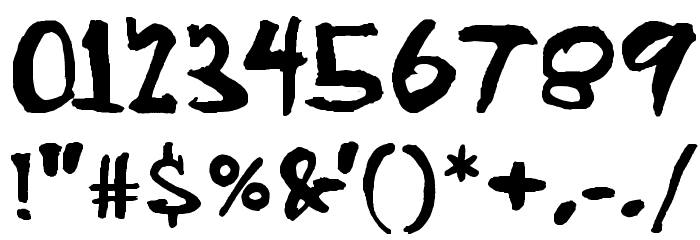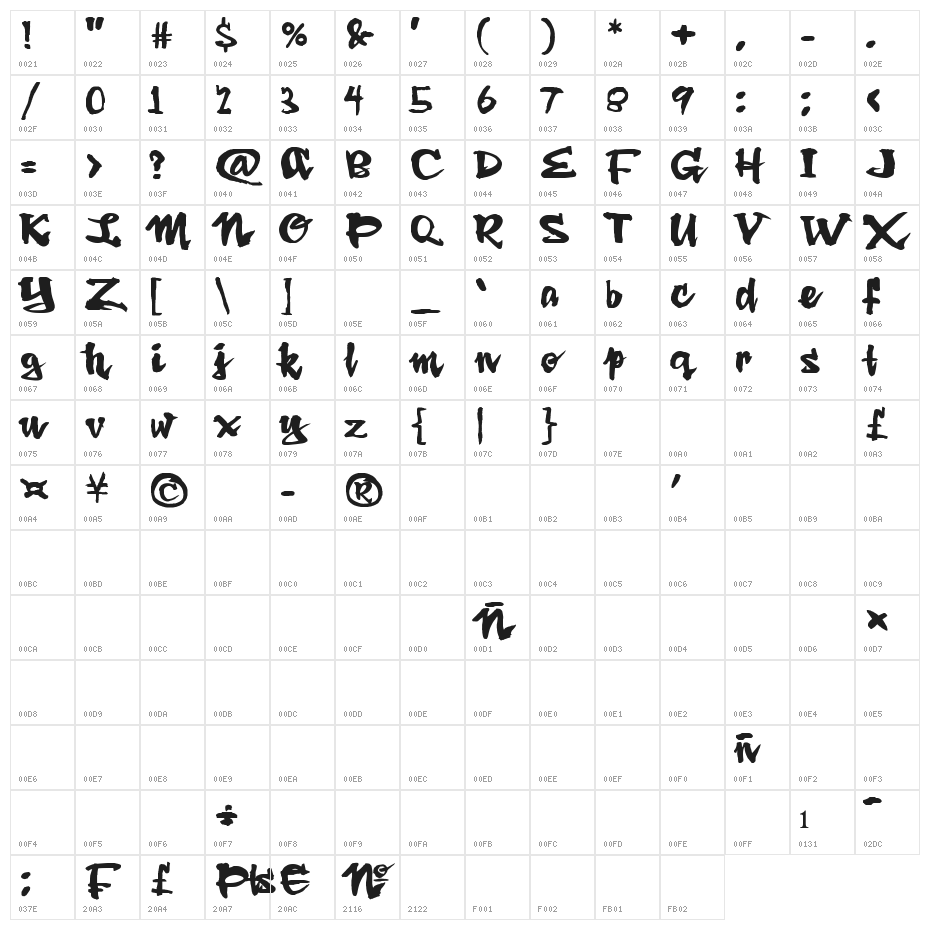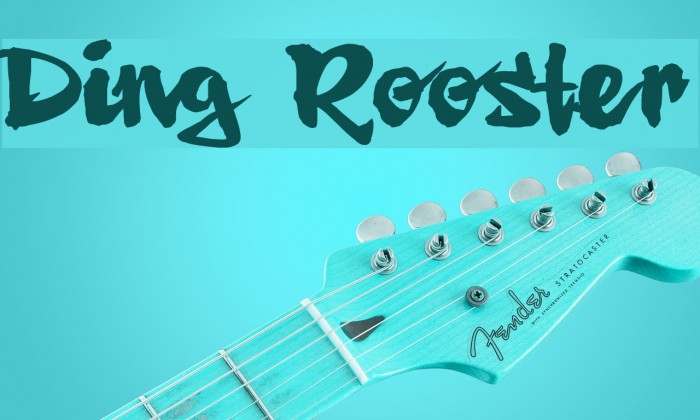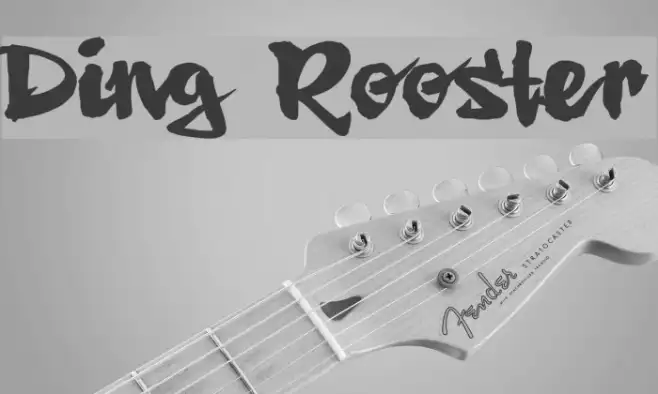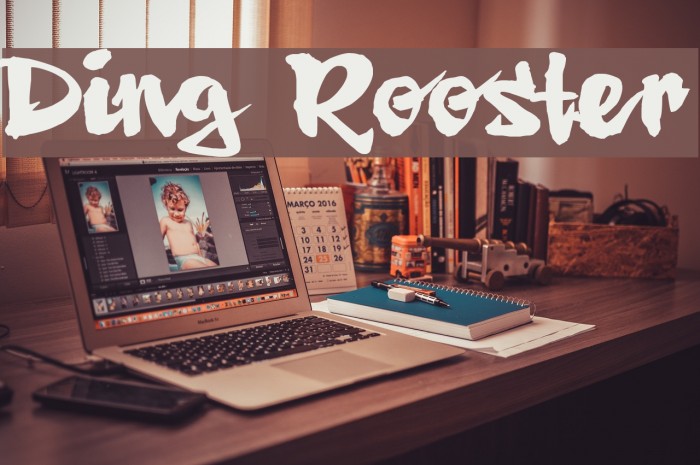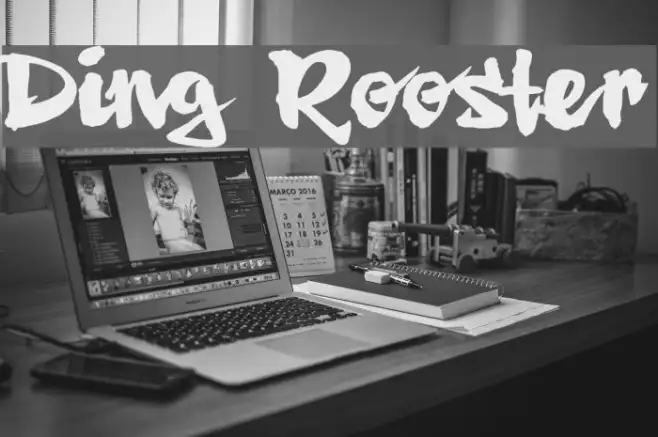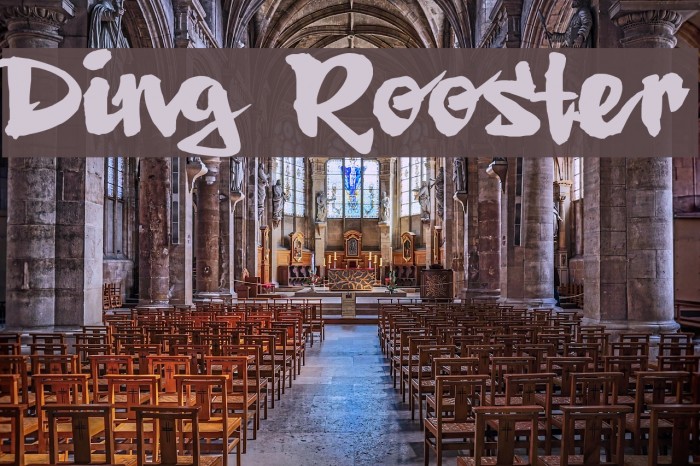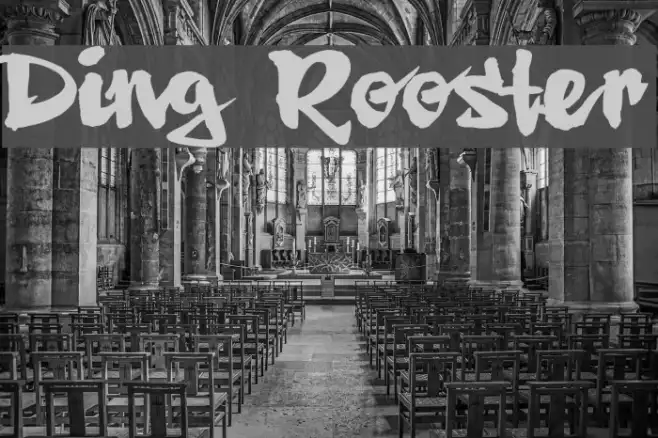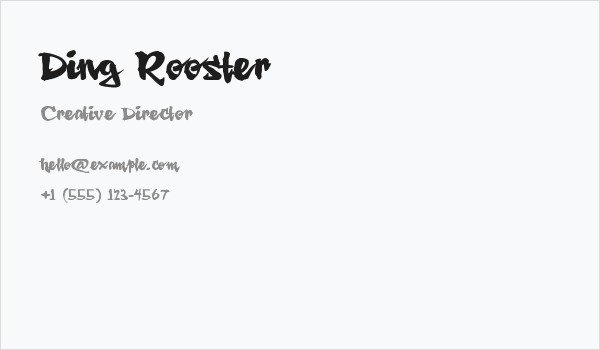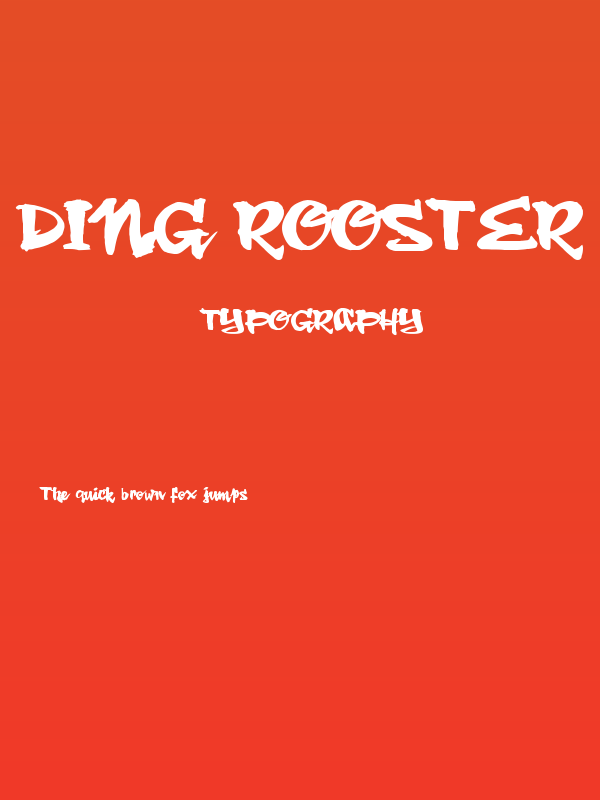
Ding Rooster Font
Ding Rooster Description
This font features a bold, expressive style with a handwritten appearance. The characters are dynamic and fluid, showcasing a brush-like texture that adds a sense of movement and energy. The uppercase and lowercase letters are distinct yet harmonious, with a playful and artistic flair. Numbers and special characters maintain the same lively aesthetic, making them suitable for creative and informal designs. The strokes are thick and varied, contributing to a high contrast that enhances readability while maintaining a unique visual appeal.
| Use Case | Logos, Posters, Creative projects |
| Proposed Projects | Ideal for artistic projects, branding, posters, and any design requiring a personal, creative touch. |